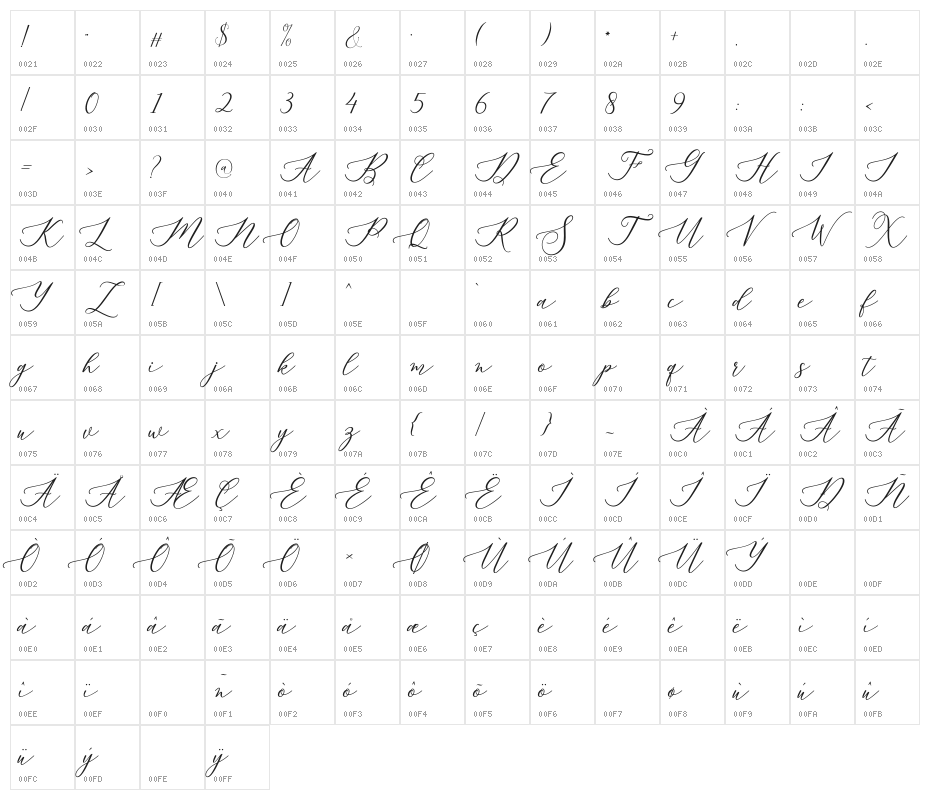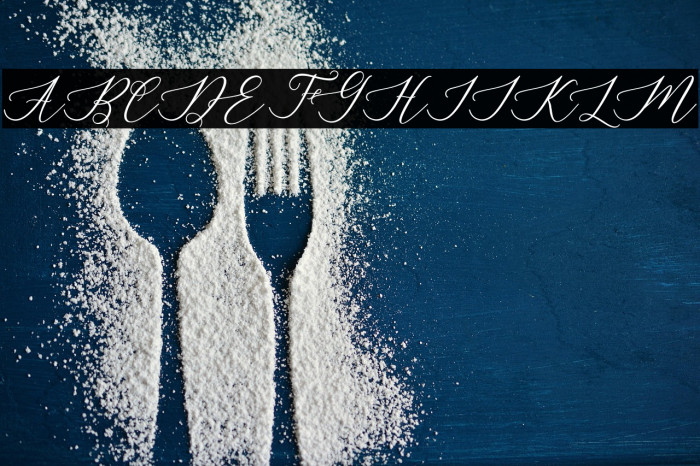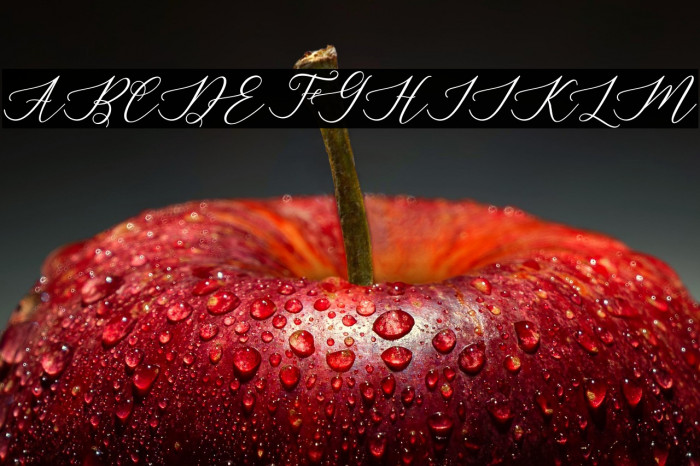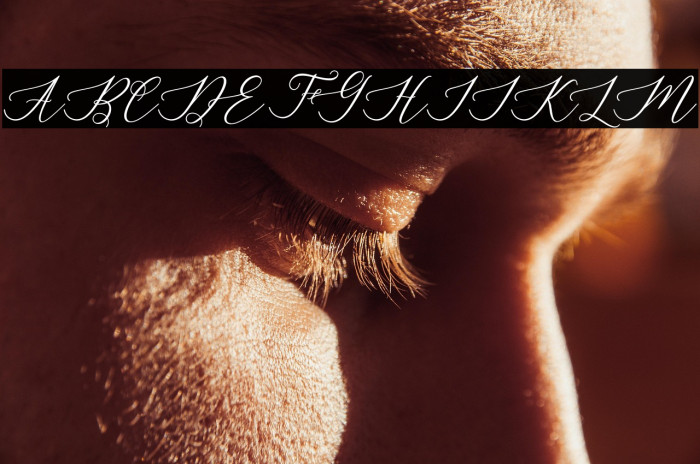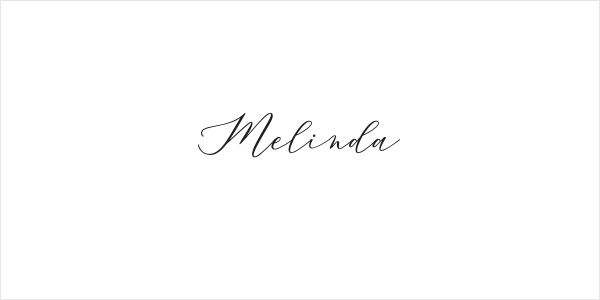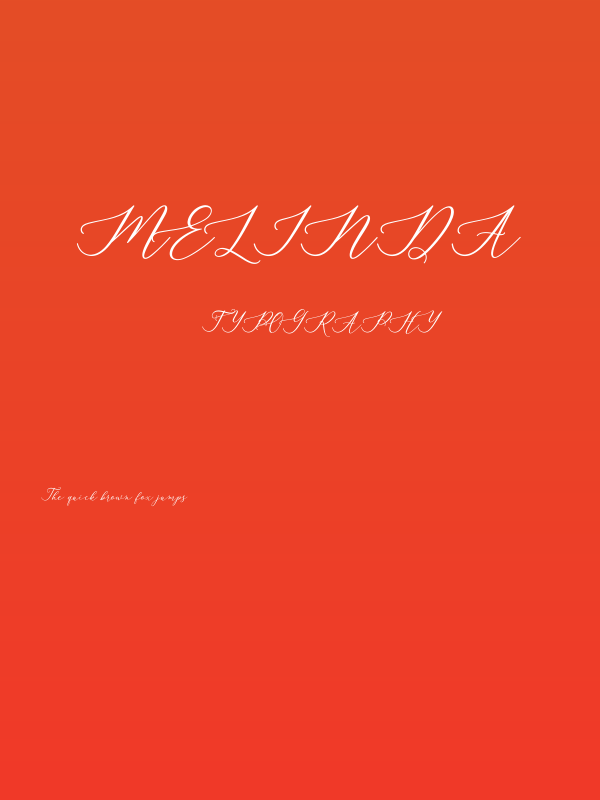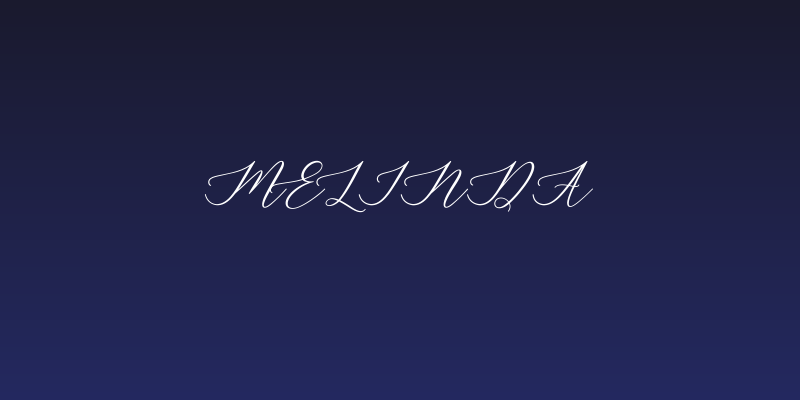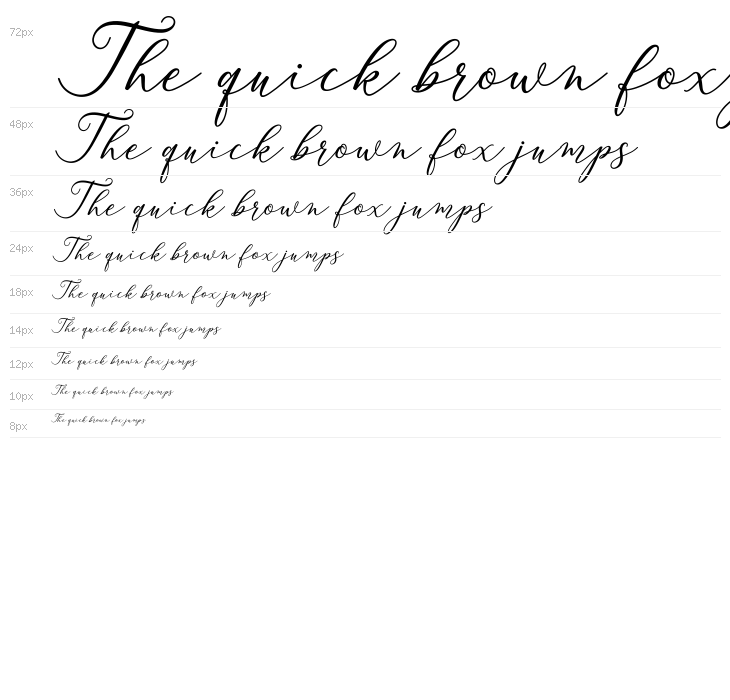
Melinda Font
Melinda Description
This elegant script font features flowing, cursive letters that exude a sense of sophistication and grace. The uppercase letters are intricately designed with delicate loops and flourishes, while the lowercase letters maintain a smooth and consistent flow. The numerals are stylishly crafted, complementing the overall aesthetic of the font. Special characters are included, maintaining the same elegant style. This font is perfect for projects that require a touch of elegance and class, such as wedding invitations, formal event programs, or upscale branding materials.
| Use Case | Headlines, Invitations, Branding |
| Proposed Projects | Ideal for wedding invitations, formal event programs, upscale branding, and elegant stationery. |